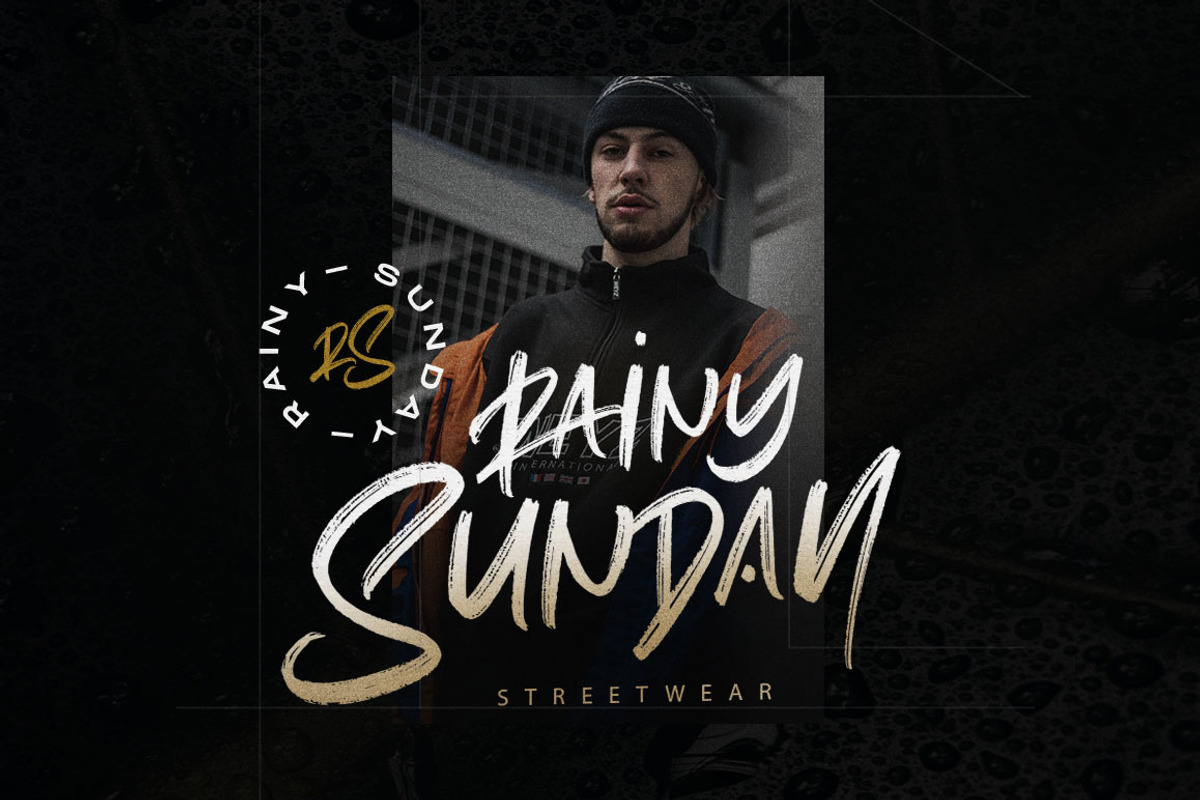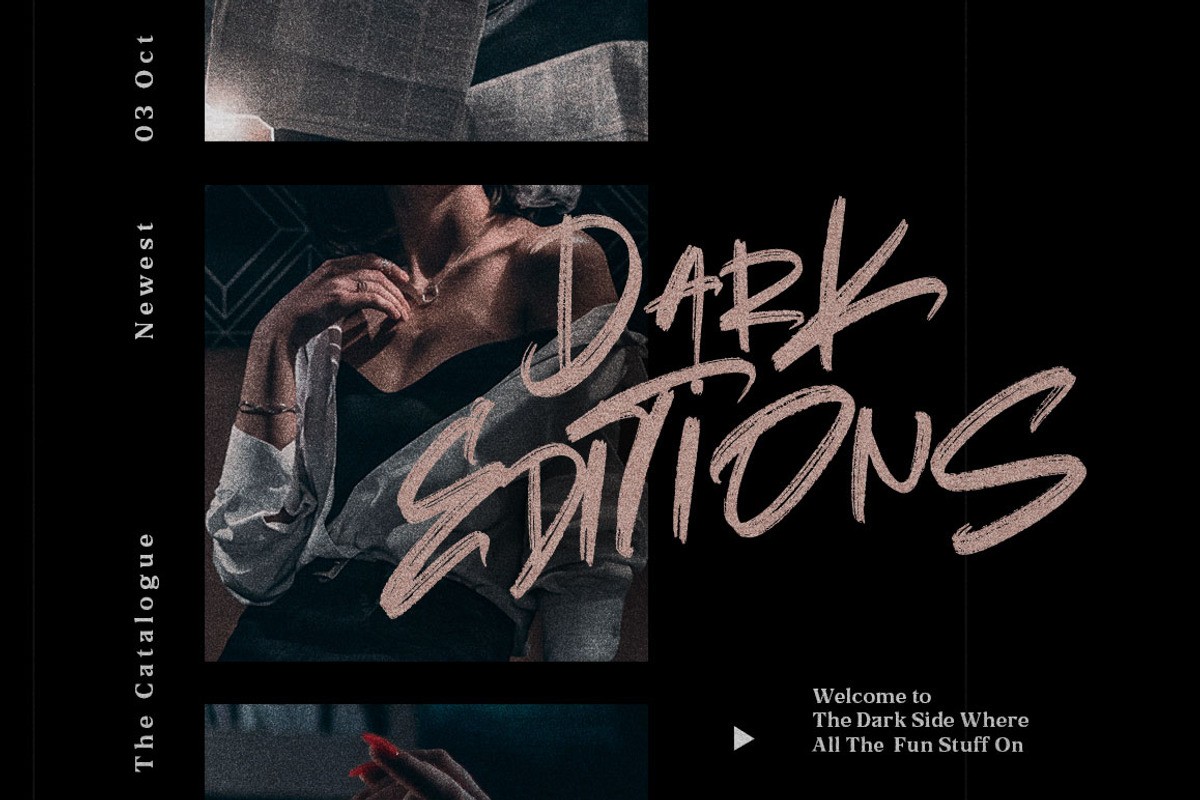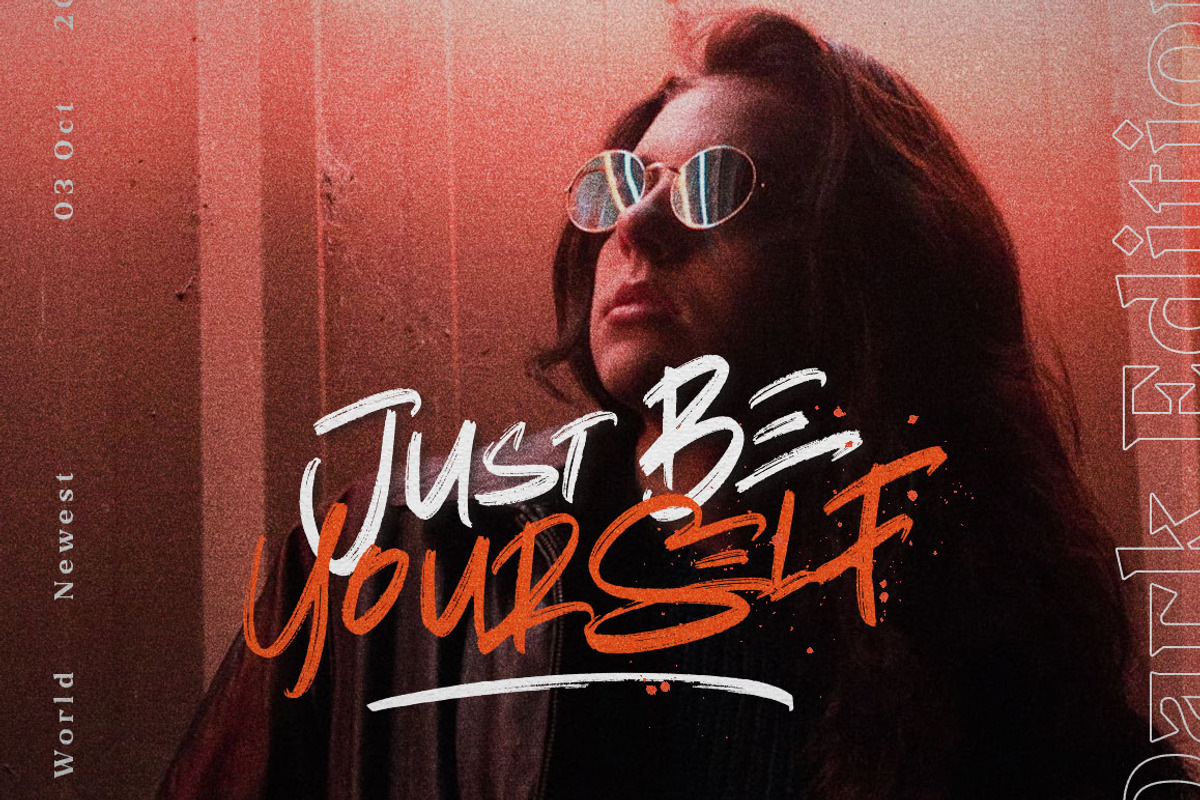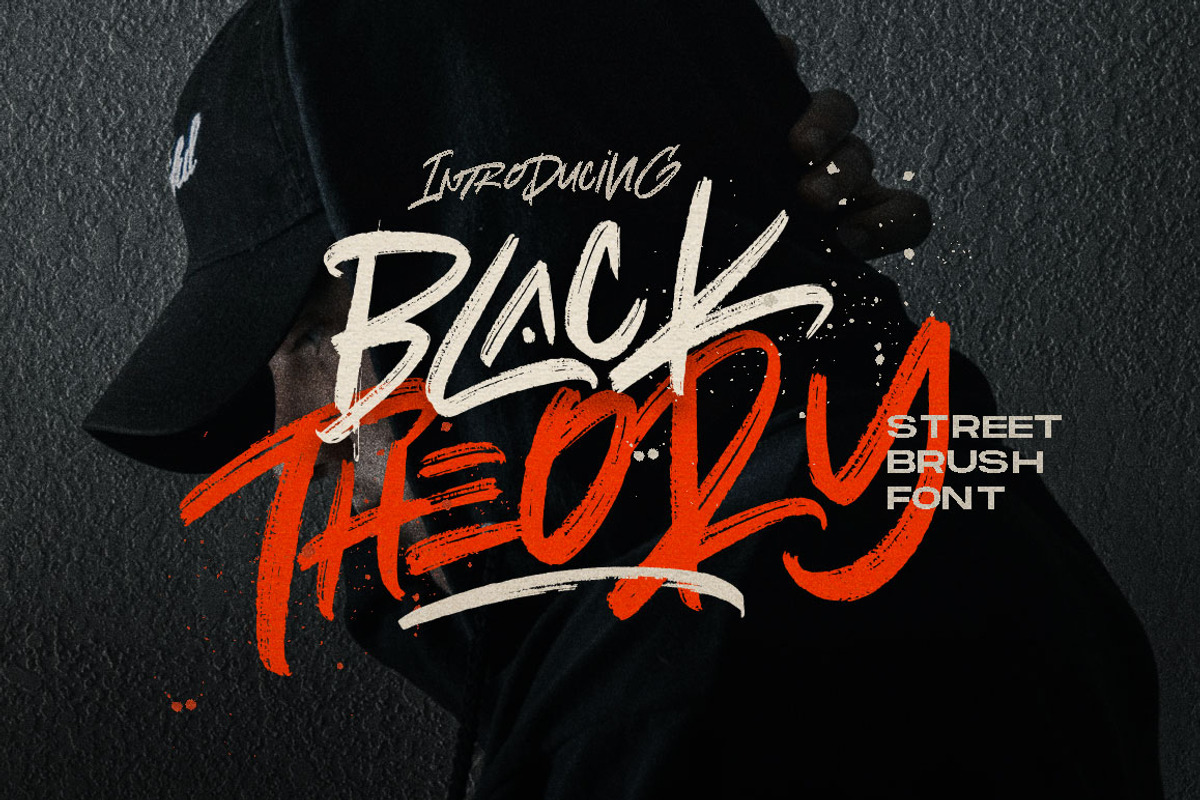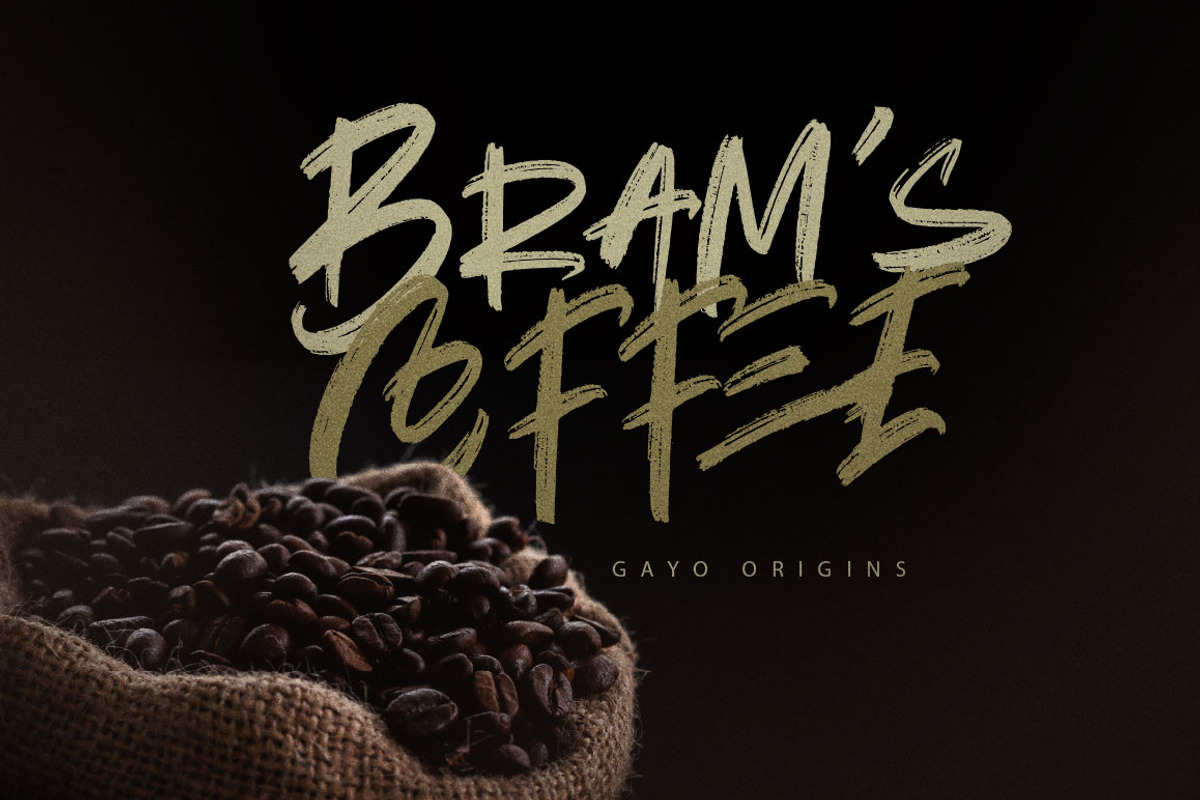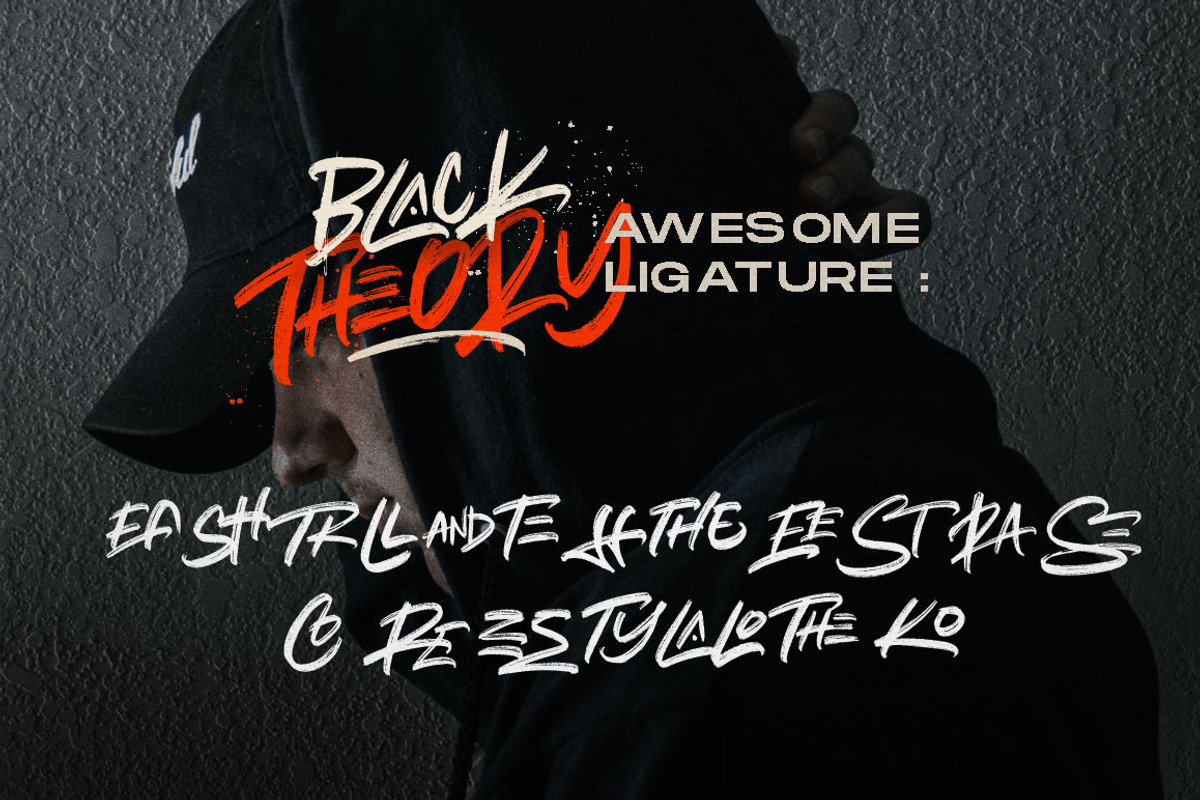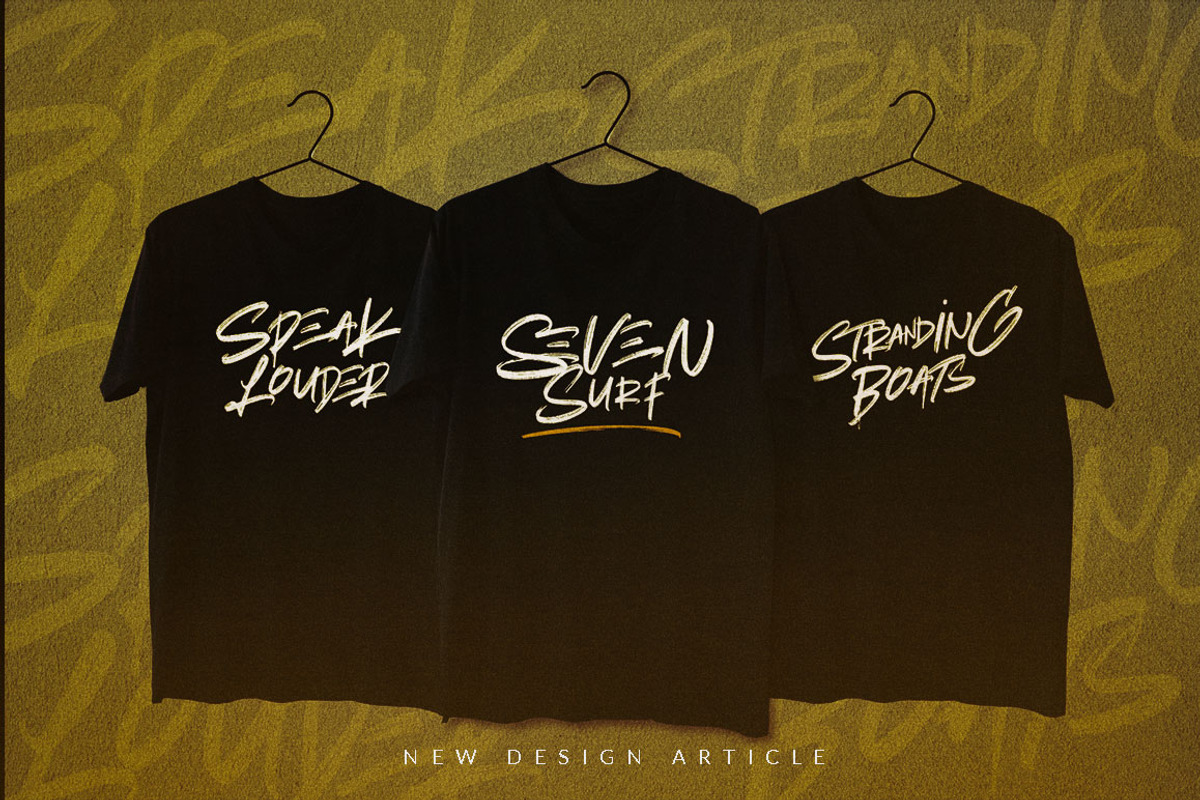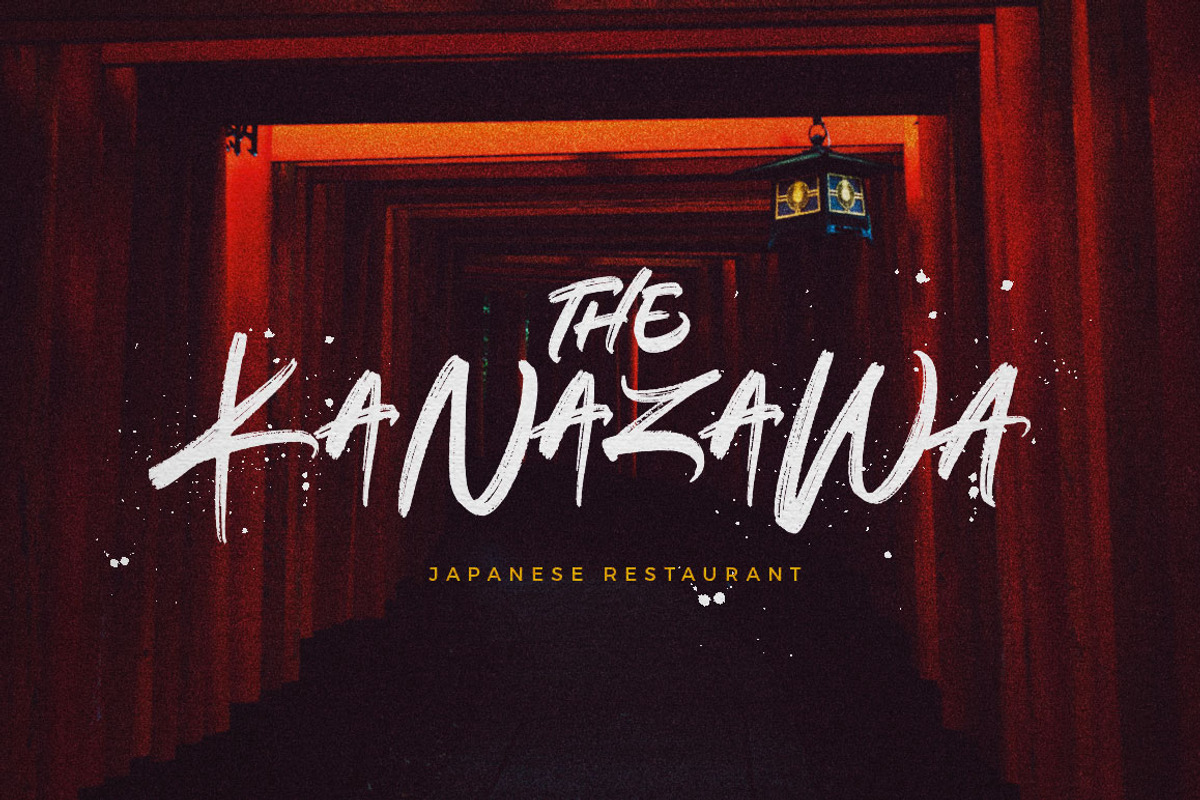
Black Theory - Urban Brush Font
DETAILS Black Theory Brush is Stylist Brush font with a real hand-painted wet brush look. Ideal for signature, logos, handwritten quotes, product packaging, header, poster, merchandise, social media & greeting cards.
Why Black Theory - Urban Brush Font is worth a look
Black Theory - Urban Brush Font by Dirtyline Studio fits naturally into Branding, posters, packaging, typography.